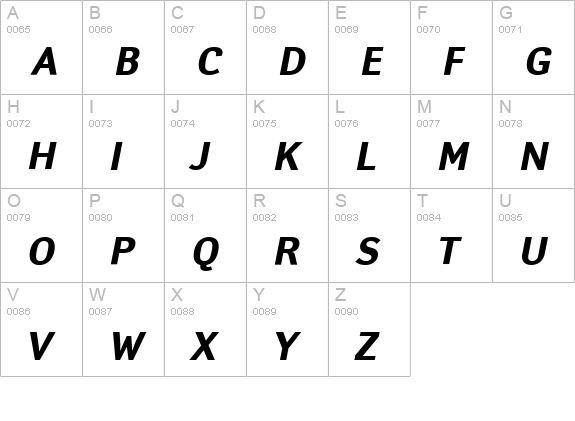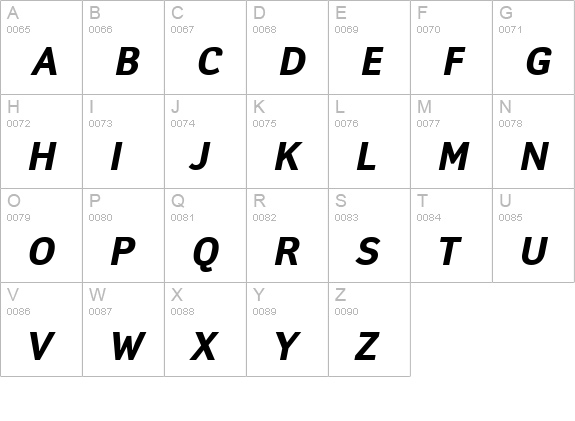
PT Yanus BoldItalic Cyrillic Font Details
The PT Yanus BoldItalic Cyrillic font is a striking and elegant typeface that exudes sophistication and style. Its bold and italic design makes a bold statement while maintaining a sense of grace and elegance. Perfect for adding a touch of flair to any design project, this font is sure to captivate and impress. This versatile font is freely available for download at FontsMarket.com, making it easily accessible for designers and creatives looking to elevate their projects with a touch of class. With its Cyrillic characters, PT Yanus BoldItalic Cyrillic font is ideal for adding a unique and international flair to your designs. Whether you're working on a branding project, advertisement, poster, or any other creative endeavor, the PT Yanus BoldItalic Cyrillic font is sure to make a lasting impression. Download it for free today and unleash the power of this stunning typeface in your next project.